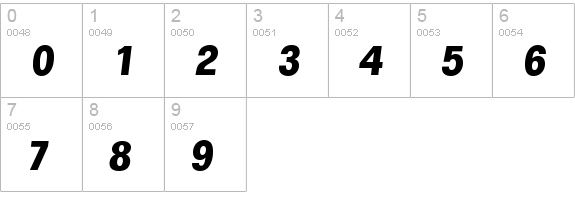
Formula-BoldIta font is a versatile and dynamic typeface that combines boldness with elegance. Its sleek and modern design makes it perfect for a wide range of projects, from branding to editorial design. The italicized version adds a touch of sophistication and style to any text. This font is not only visually appealing but also highly functional, ensuring readability and clarity in any context. Whether used for headlines, body text, or quotes, Formula-BoldIta font will make your content stand out. Best of all, Formula-BoldIta font is free to download at FontsMarket.com, making it accessible to designers, creatives, and anyone looking to elevate their typography game without breaking the bank. Don't miss out on the opportunity to enhance your projects with this fantastic font.